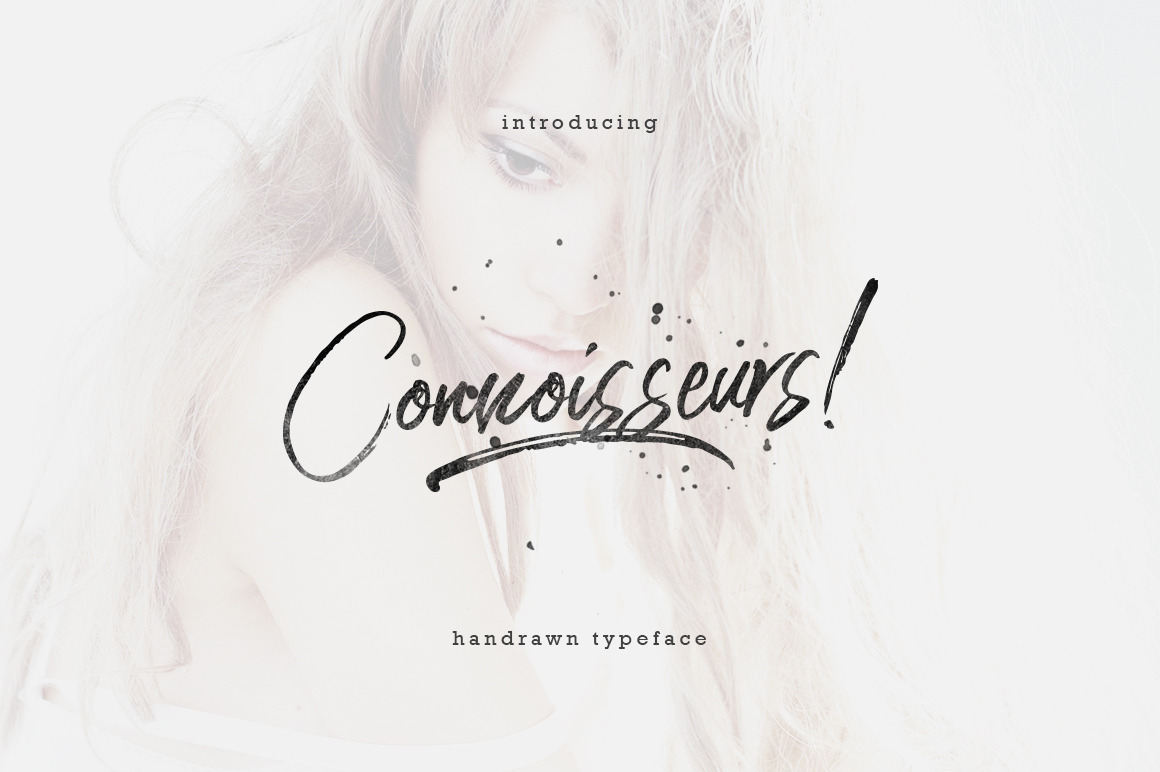
Connoisseurs Typeface
Introducing: Connoisseurs Typeface is a handbrush. The style of handwriting and irregular but still elegant, and you will enjoy to use this font style.
Connoisseurs is perfect for branding projects, homeware designs, product packaging - or simply as a stylish text overlay to any background image.
Ligatures • Are also available for several lowercase characters (double-letters which flow more naturally). These are only accessible via software with opentype capability or a glyphs panel, e.g. Photoshop/Illustrator.